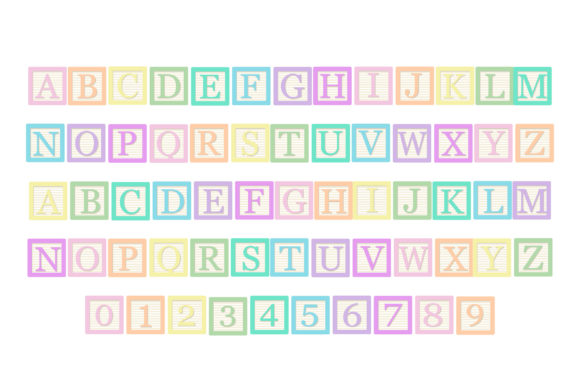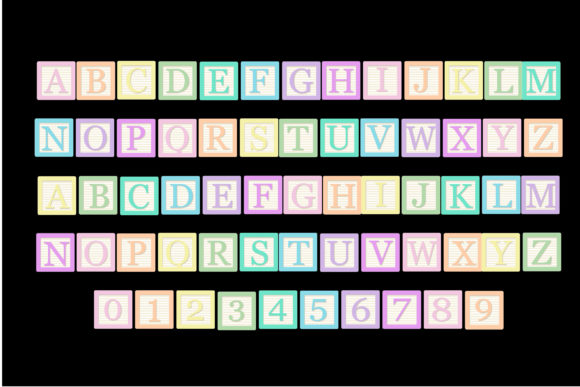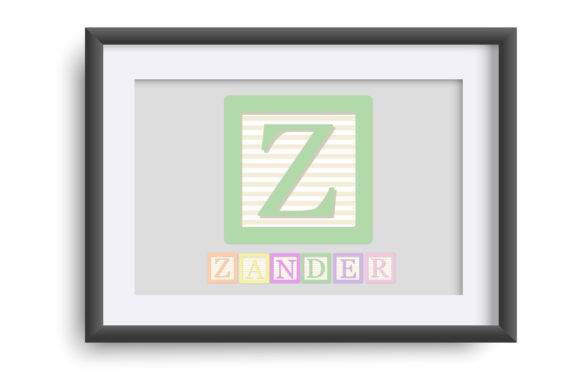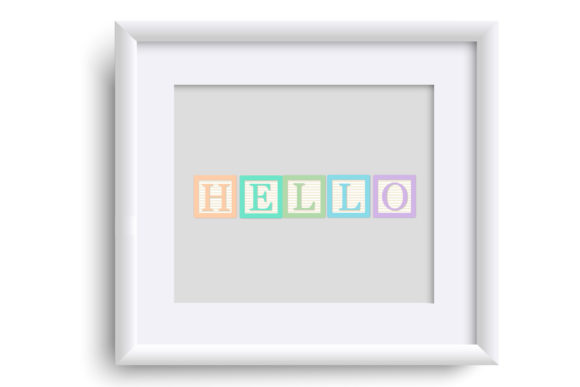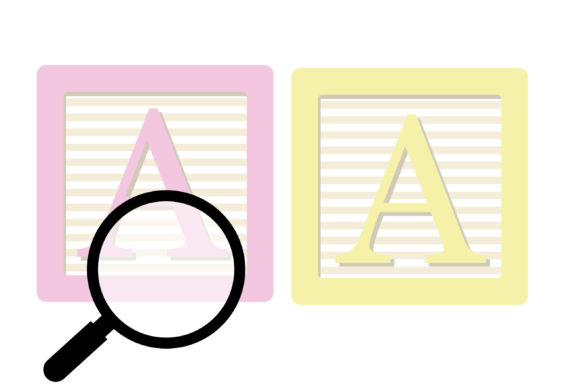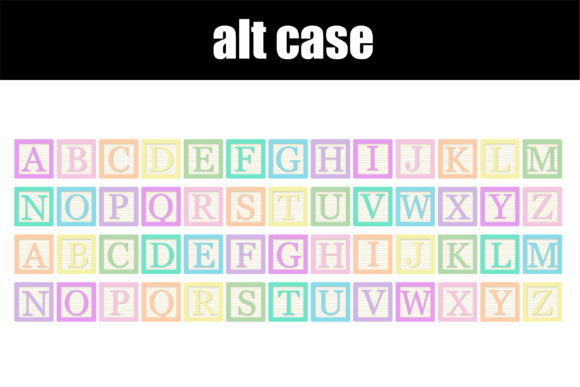
Introduction to Pastel Blocks Font Font
Fonts play a crucial role in design, and the Pastel Blocks Font font is a typeface that brings both character and versatility to any project. Whether you’re working on a branding project, a website, or a print design, the Pastel Blocks Font font offers a unique style that can elevate your work.
Pastel Blocks is a full-color font that feature pastel childrenβs blocks.
Whether you are using it for cartoon-related designs, children games, quotes, titles, brand names, book covers, posters, or just any creation that requires a touch of joy, this font is a great choice Note.
Key Features of Pastel Blocks Font Font
Why Choose Pastel Blocks Font Font?
The Pastel Blocks Font font is more than just a typeface β it’s a design tool that helps you communicate your message with style and clarity. Its unique character set and versatile design make it suitable for a wide range of applications, from elegant invitations to bold headlines.
With its carefully crafted letterforms and balanced proportions, the Pastel Blocks Font font ensures readability and visual appeal across all mediums.
What makes Pastel Blocks Font font special?
The Pastel Blocks Font font stands out with its unique design, exceptional readability, and versatility across various design applications.